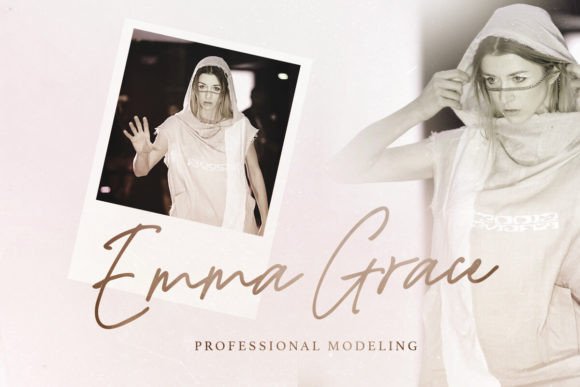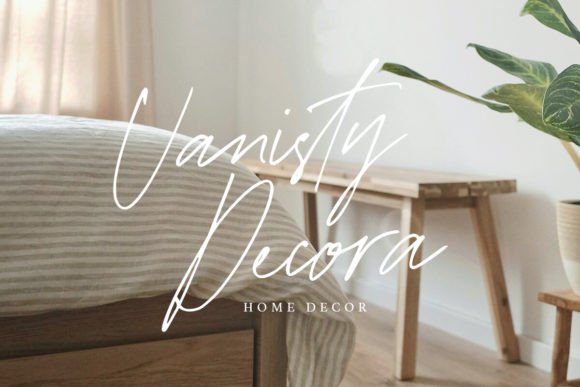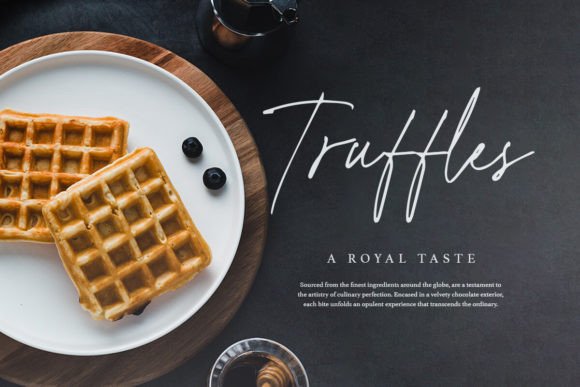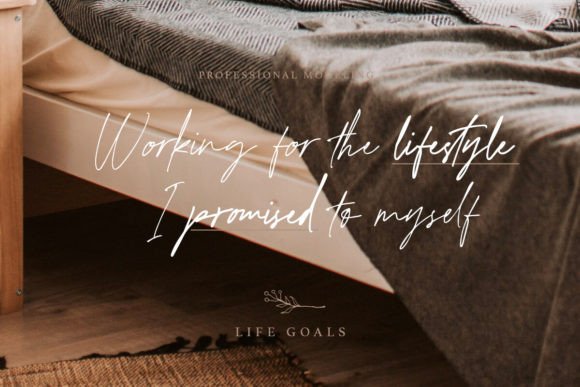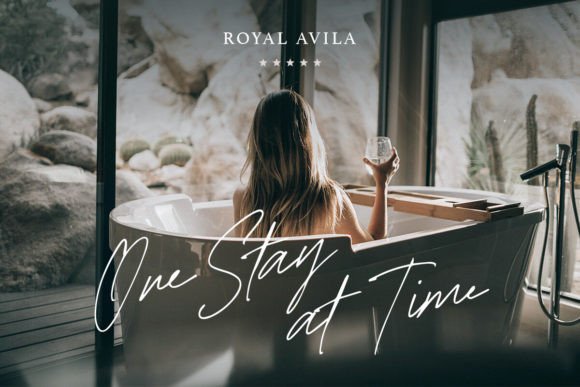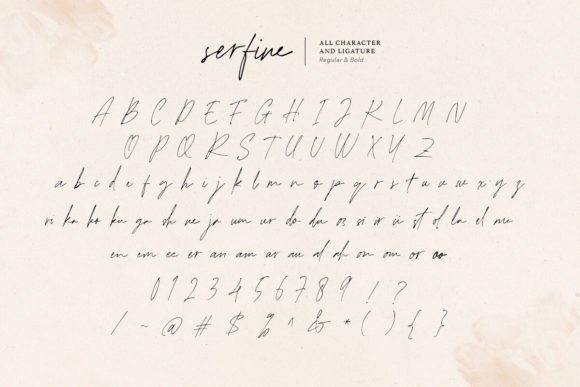
Introduction to Serfine Font
Introducing Serfine – a signature script crafted with handwritten charm, featuring ligatures.
Available in both Regular and Bold styles, you have the flexibility to choose the one that best suits your requirements Whether it’s for a digital signature, logo, branding, quotes, or to complement your sans or serif fonts, Serfine is versatile.